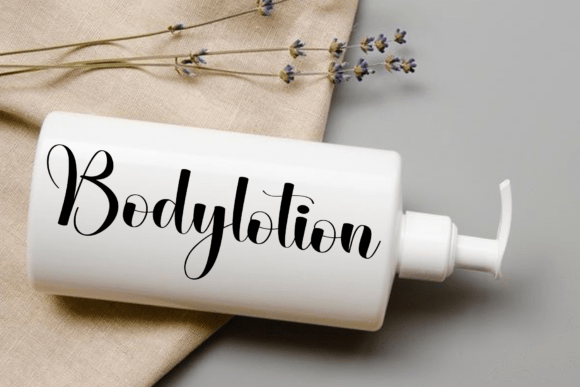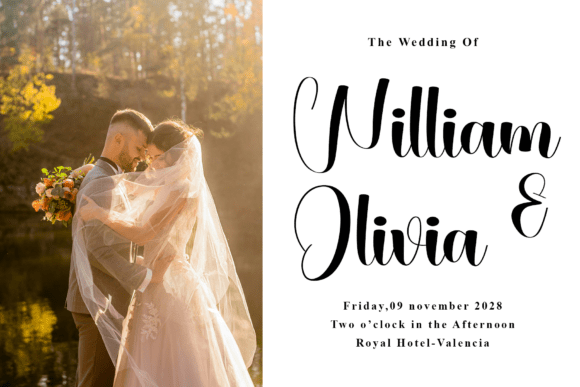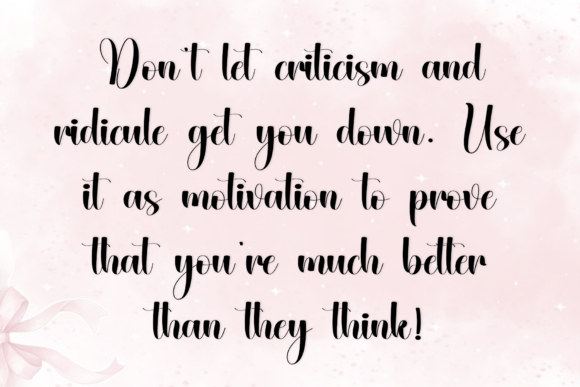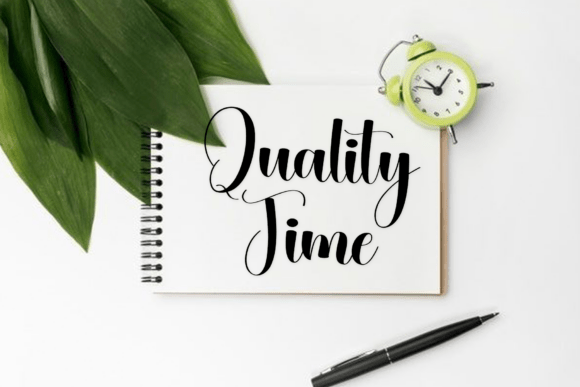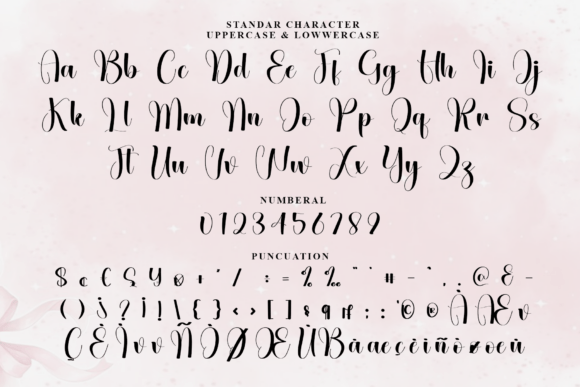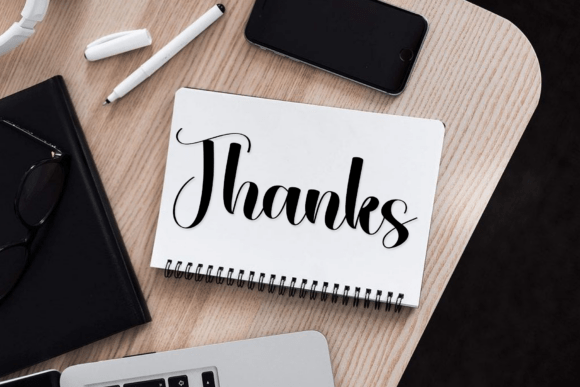
Unleashing Elegance: The Power of the Barbie Birthday Font
As designers, we’ve all been there – staring at a blank page, trying to conjure up the perfect combination of words and images to capture a moment, convey a message, or simply express our creativity. And then, like a breath of fresh air, a font comes along that changes everything. For those who crave a touch of refined elegance and stylish flair in their designs, the Barbie Birthday Font is a game-changer.
This sophisticated handwritten script font is more than just a pretty face – it’s a versatile tool that can add warmth and charm to any project, from branding and invitations to stationery and packaging. With its flowing curves and harmonious balance of decorative swashes and clear letterforms, the Barbie Birthday Font is the perfect choice for designers who want to create a romantic yet modern look that’s both timeless and contemporary.
Key Features of Barbie Birthday Font
- Unique Characteristics: The Barbie Birthday Font features a playful, cursive script with a touch of whimsy, making it perfect for birthday invitations, party decorations, and other celebratory designs.
Barbie Birthday Font Review
Overall, I think the “Barbie Birthday Font” has some lovely qualities that make it a great addition to any party or celebration. ✨ The font is playful, colorful, and screams fun, making it perfect for kids’ birthday parties or other festive events.
The font is highly customizable, which is a huge plus. ✨ You can easily change the color, size, and style to fit your needs. This versatility makes it a great choice for designers who want to add a personal touch to their projects.
- ⚠️ The font may not be suitable for formal or professional projects due to its playful nature.
- ⚠️ Some users may find the font a bit too bold or overwhelming, especially when used in large quantities.
- ⚠️ The font does not include any special characters or symbols, which may be a limitation for some designers.
Overall, I think the “Barbie Birthday Font” is a fun and creative choice for designers who want to add a touch of whimsy to their projects. While it may have some limitations, it’s a great option for anyone looking for a playful and customizable font.
Practical Application Guide: Barbie Birthday Font
For the best results, use the Barbie Birthday Font in conjunction with bright and pastel colors to create a festive atmosphere. You can also use it to create custom invitations, banners, and party decorations.
The Barbie Birthday Font is ideal for creating custom birthday invitations, party decorations, and themed accessories. It’s also a great choice for creating digital content, such as social media posts and graphics, for birthday celebrations.